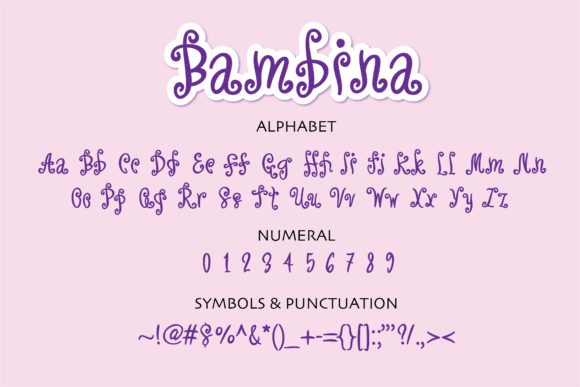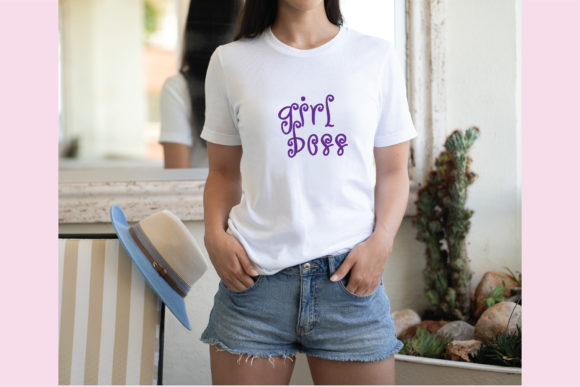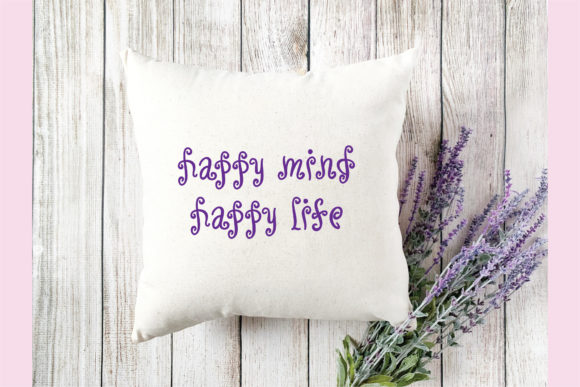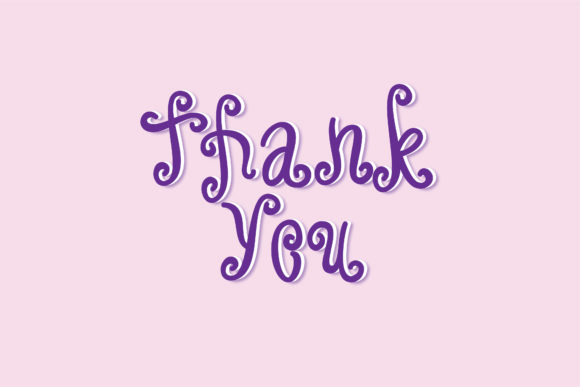
Bambina Font: The Ultimate Handwritten Font for Designers and Crafters
Are you looking for a font that can add a personal touch to your designs? Look no further than Bambina Font! This adorable handwritten font is perfect for designers and crafters who want to create unique and eye-catching designs. In this article, we’ll explore the features and benefits of Bambina Font, and show you how to make the most of this beautiful font.
What is Bambina Font?
Bambina Font is a cute and flexible handwritten font that is designed to bring a touch of personality to your designs. Its natural and unique style makes it incredibly fitting to a large pool of designs, from wedding invitations and thank you cards to quotes, greeting cards, logos, business cards, and more. With Bambina Font, you can add a handwritten touch to any design project and make it stand out from the crowd.
Features of Bambina Font
Bambina Font has several features that make it a great choice for designers and crafters. Some of its key features include:
- Handwritten style: Bambina Font has a natural, handwritten style that gives your designs a personal touch.
- Flexibility: This font is incredibly flexible and can be used for a wide range of design projects.
- Unique style: Bambina Font has a unique style that sets it apart from other fonts.
- Easily readable: Despite its handwritten style, Bambina Font is easily readable, making it perfect for body text and headings.
Benefits of Using Bambina Font
There are many benefits to using Bambina Font in your designs. Some of the benefits include:
- Adds a personal touch: Bambina Font adds a personal touch to your designs, making them more relatable and engaging.
- Versatile: This font can be used for a wide range of design projects, from wedding invitations to business cards.
- High-quality: Bambina Font is a high-quality font that is designed to produce crisp and clear text.
How to Use Bambina Font
Using Bambina Font is easy! Here are a few tips to get you started:
- Choose the right size: Choose a size that is easy to read, but also visually appealing.
- Experiment with colors: Bambina Font looks great in a variety of colors, so don’t be afraid to experiment.
- Pair with other fonts: Bambina Font can be paired with other fonts to create a unique and visually appealing design.
- Use it for headings and body text: Bambina Font can be used for both headings and body text, making it a versatile font for any design project.
Design Ideas Using Bambina Font
Bambina Font is a versatile font that can be used for a wide range of design projects. Here are a few design ideas to get you started:
- Wedding invitations: Bambina Font is perfect for wedding invitations, adding a personal touch to your special day.
- Thank you cards: Use Bambina Font to create beautiful thank you cards for any occasion.
- Quotes and posters: Bambina Font is great for quotes and posters, adding a touch of personality to your message.
- Greeting cards: Use Bambina Font to create beautiful greeting cards for any occasion.
- Logos and business cards: Bambina Font can be used to create unique and eye-catching logos and business cards.
| Font Name | Bambina Font |
| Author | GoodMoodType |
Bambina Font is a beautiful handwritten font that is perfect for designers and crafters who want to add a personal touch to their designs. With its natural and unique style, Bambina Font is incredibly fitting to a large pool of designs. Whether you’re creating wedding invitations, thank you cards, quotes, greeting cards, logos, business cards, or any other design project, Bambina Font is a great choice. So why not give it a try and see the difference it can make in your designs?